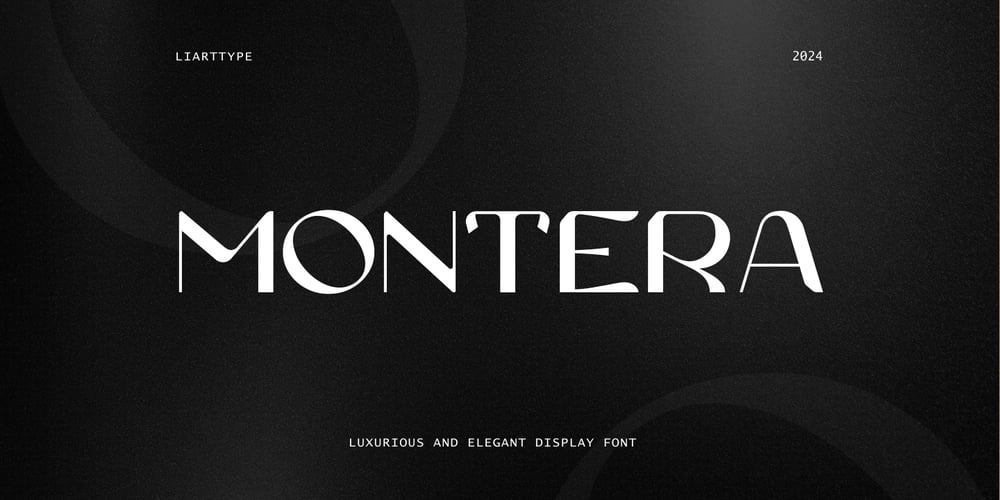
Montera Font Family was designed by Ali Sifak Muftari and published by Liartgraphic. Montera contains 1 styles and family package options. Hello gaes!How are you guys doing ? i’m sure that’s nice!Meet our newest product, we call this product Montera font.Montera font are cute typeface fontWhit a uniqe touch and assertiveMonteras font is very nice to use on:fashion magazine,logos, ,and photography,landing page,fliyer,What’s includes- Montera – mutilngual support- alternate- ligatureThank you,salutationsAli Sifak Muftari